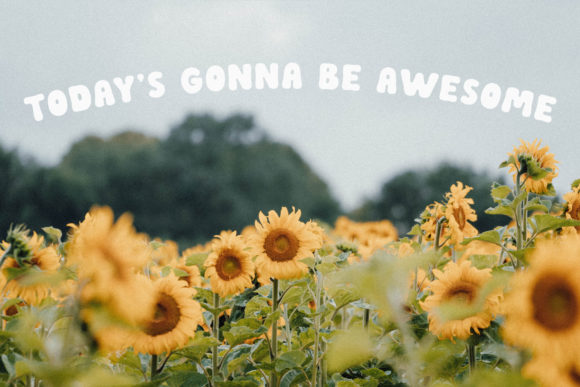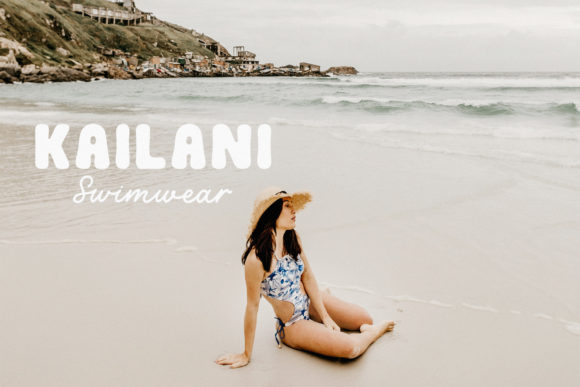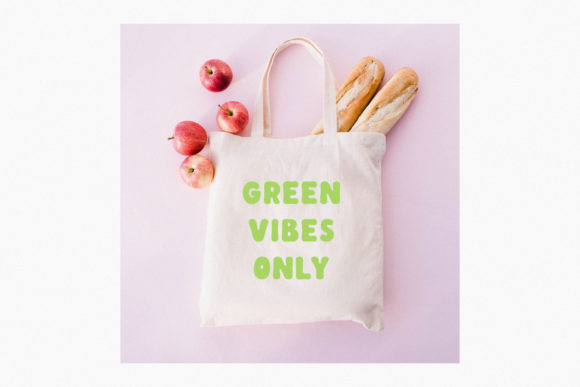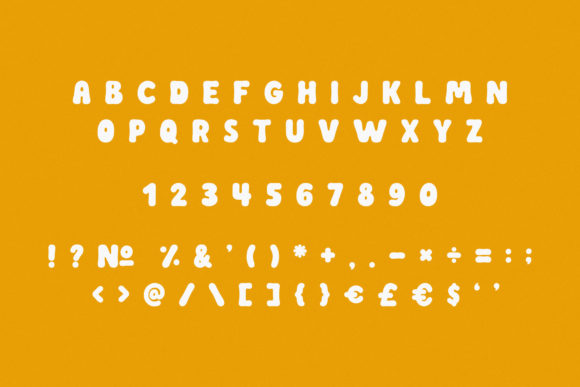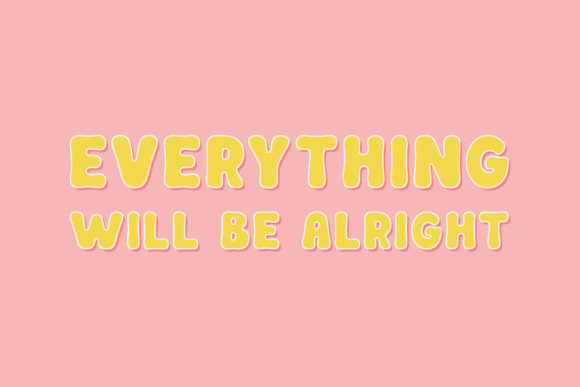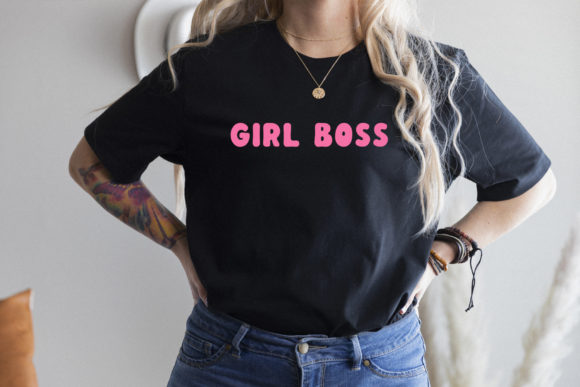
The Ultimate Guide to Easy Breezy Font: A Fun and Playful Companion for Your Creative Projects
An Honest Review of Easy Breezy Font
What I Love About Easy Breezy ✨
- ✅ Fun and playful vibe: Easy Breezy is perfect for projects that need a dash of whimsy and personality.
- ✅ Cute hand-drawn aesthetic: The font’s hand-drawn feel makes it perfect for DIY projects, stickers, and kid’s clothes.
- ✅ Highly versatile: Easy Breezy can be used for a wide range of projects, from branding to t-shirt design.
- ⚠️ Limited use in formal contexts: Easy Breezy is a playful font, so it may not be suitable for formal or professional projects.
- ⚠️ Some letters may require manual kerning: As with any font, you may need to adjust the kerning for certain letter combinations to achieve optimal results.
- Experiment with the font’s OpenType features, such as glyphs and stylistic alternates, to add more personality to your design.
The Backstory of Easy Breezy Font
Easy Breezy was designed with one goal in mind: to create a fun and playful font that’s perfect for creative projects. The designer, inspired by the carefree spirit of summer, crafted a font that’s bubbly, cheerful, and full of personality. Whether you’re a designer, crafter, or hobbyist, Easy Breezy is sure to bring a smile to your face and a dash of whimsy to your projects.